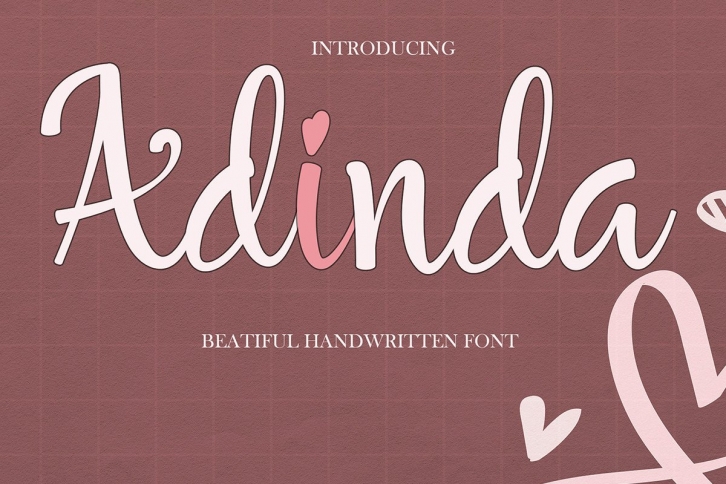
Adinda is a cute and beautiful handwritten font. It is suitable for creating gorgeous wedding invitations, beautiful stationery art, eye-catching social media posts, and any of your creative design projects. Use it to turn any design idea into a true standout.!!